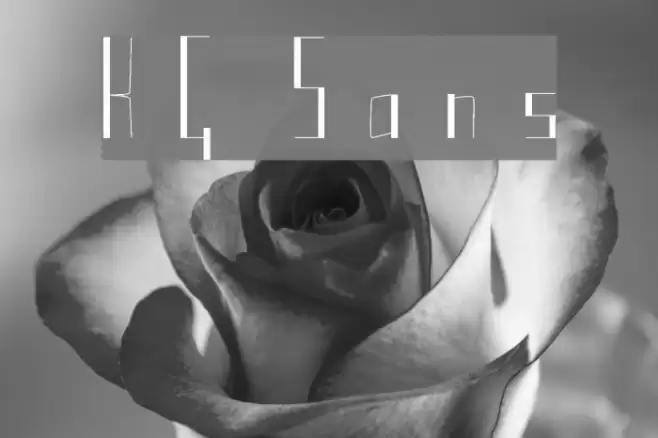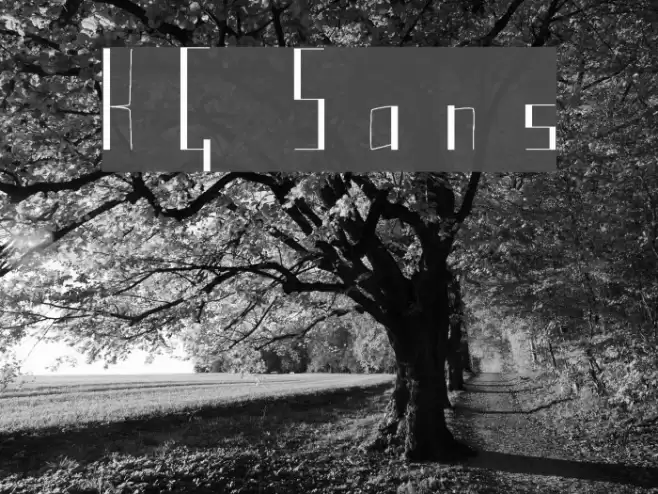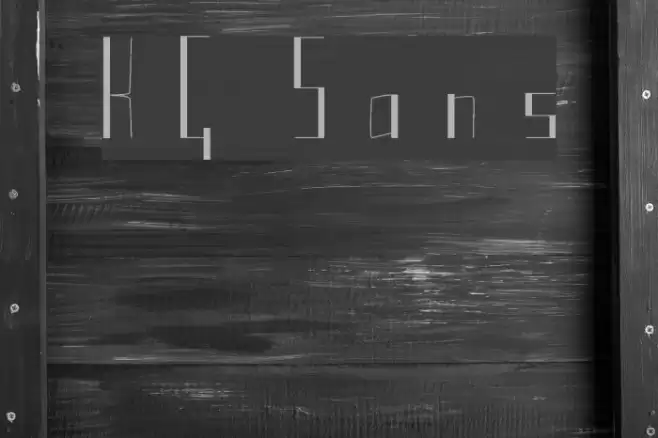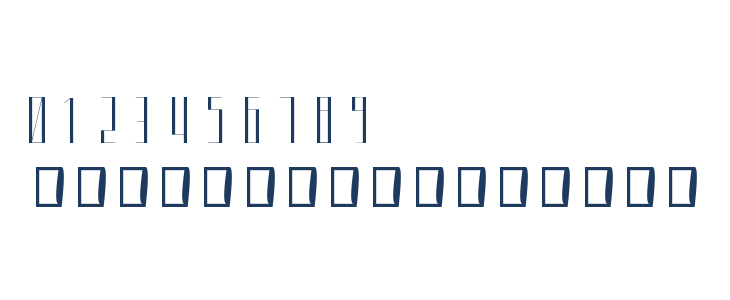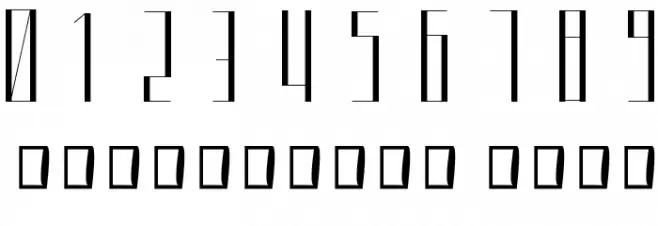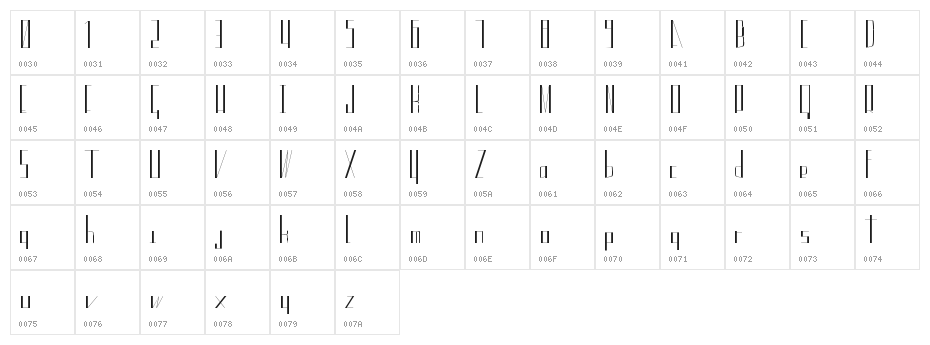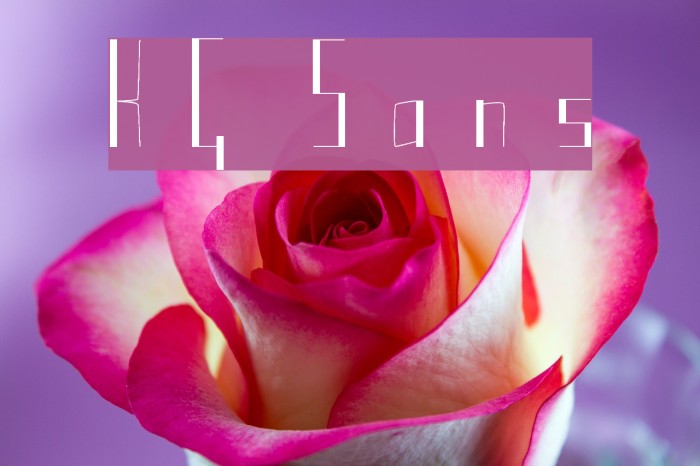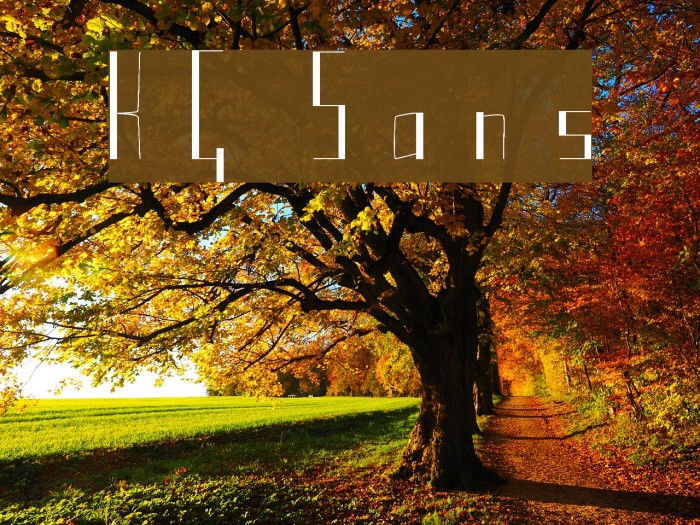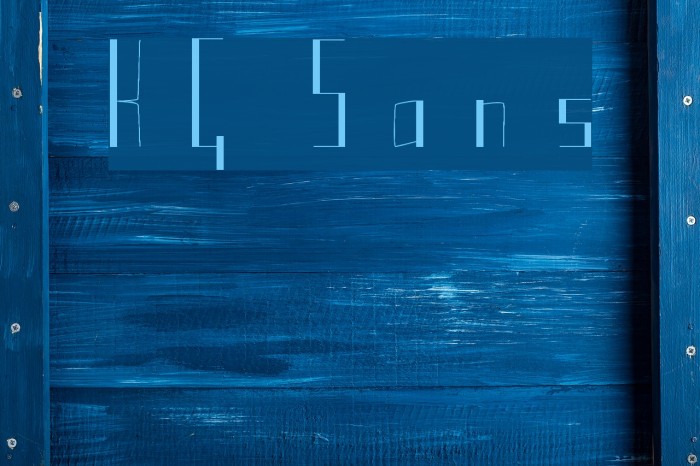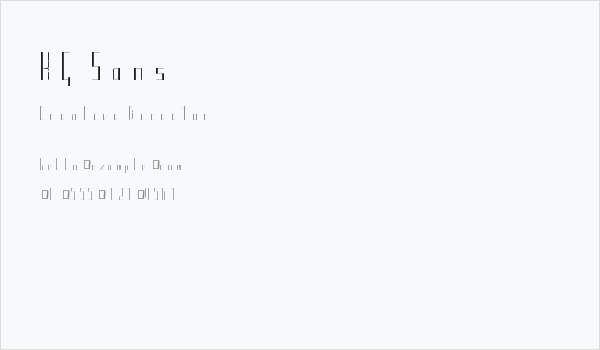
KG Sans Font
KG Sans Description
This font features a modern and minimalist design with a distinct geometric structure. The characters are tall and narrow, giving it a sleek and contemporary appearance. The strokes are primarily thin, with occasional variations in thickness that add a subtle dynamic quality. The uppercase letters are particularly elongated, while the lowercase letters maintain a consistent height, contributing to a uniform and clean look. The numerals are similarly styled, ensuring cohesion across all characters. This font's unique style makes it suitable for projects that require a modern and edgy aesthetic.
A modern, geometric font with tall, narrow characters and subtle stroke variations from Uncategorized fonts.
- Proposed Projects: Ideal for branding, editorial design, and digital media projects that aim for a contemporary and stylish look.
- Use Case: Headlines, Logos, Digital media